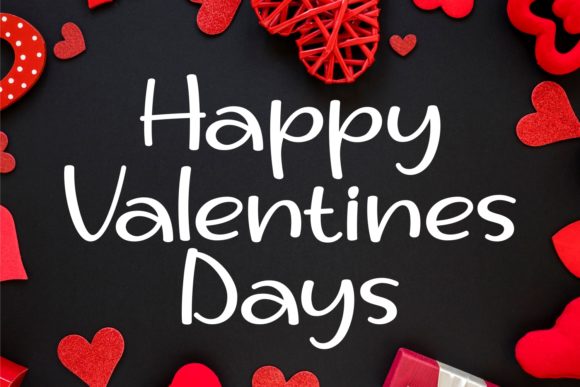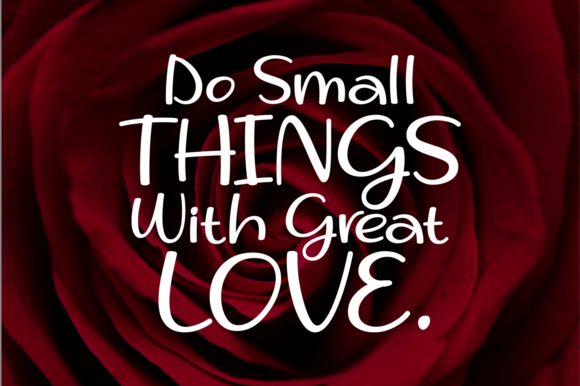
HomeScript FontsThe Gredy Cute Font Script Fonts The Gredy Cute Font FacebookTwitterPinterestWhatsApp The Gredy Cute Font Poster 2 The Gredy Cute Font Poster 3 About The Gredy Cute Font The Gredy Cute is a friendly and modern script typeface. Fall in love with its playful appearance! DOWNLOAD NOW 107 0 People also explored Rolhausen Font Birani Font Banana Carolline Duo Font Bobogo Font The Chief Font The Angeli Font Baby Gentha Caravanner Font Andaria Font Blasting Font Toniya Smith Font Spirit Font TagsThe Gredy Cute Font Previous articleValenfy FontNext articleRomantic Kissing Font LEAVE A REPLY Cancel reply Comment: Please enter your comment! Name:* Please enter your name here Email:* You have entered an incorrect email address! Please enter your email address here Website: Save my name, email, and website in this browser for the next time I comment. Unlock Endless Creativity with the FREE September Clipart Huge Bundle (Valued at $700!) Personal Use Free Soria Personal Use Free Read more Predators Personal Use Free Read more Comic Caps Personal Use Free Read more The Relapse Personal Use Free Read more BLOG The 10 Best Handwriting Fonts to Add Personality to Your Designs 10 of the Best Handwriting Fonts for Adding Personality to Your Designs There will undoubtedly be no other better choice than handwriting fonts to give... Using Fonts in Digital Marketing: Tips to Strengthen Your Brand Identity Free Fonts Risk: Why Free Fonts Can Be Dangerous for Designers Top 7 Google Fonts Alternatives for Faster and Privacy-Friendly Web Design (2025)